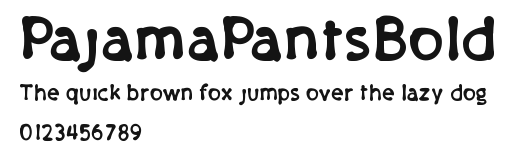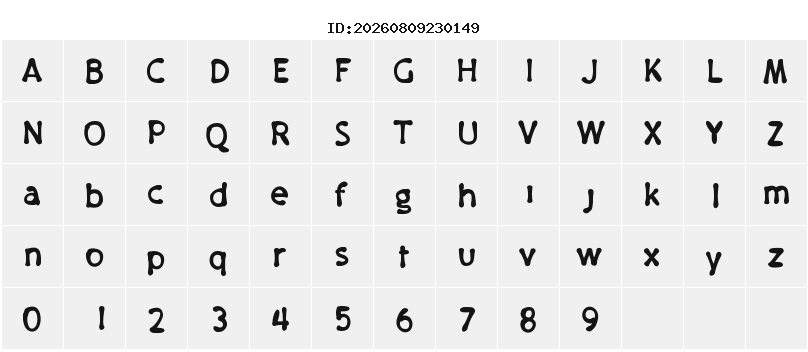
PajamaPantsBold Preview
• Font Name: PajamaPantsBold
• Full Font Name: PajamaPantsBold
• PostScript Name: PajamaPantsBold
About PajamaPantsBold.ttf
PajamaPantsBold.ttf is a modern, elegant sans-serif font designed for ultimate readability and visual harmony. Perfect for branding, headlines, web design, and print materials.